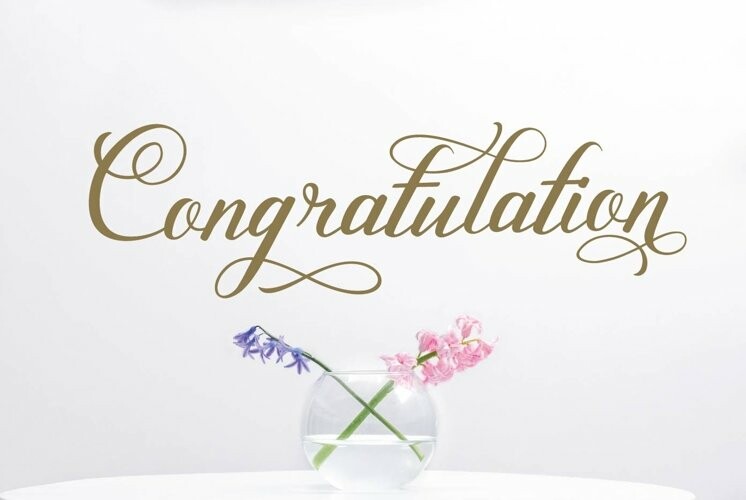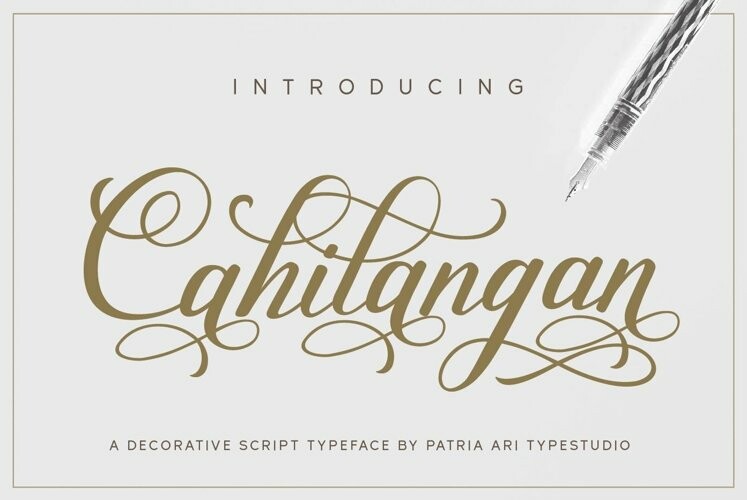
Cahilangan Font
Cahilangan FontCahilangan is a luxurious wedding script typeface with different and beautiful alternate glyphs that you can experiment with.
Cahilangan is perfect for branding projects, wedding invitation, branding, logo, social media posts, advertisements, product packaging, product designs, label,poster, and any projects that you work on.